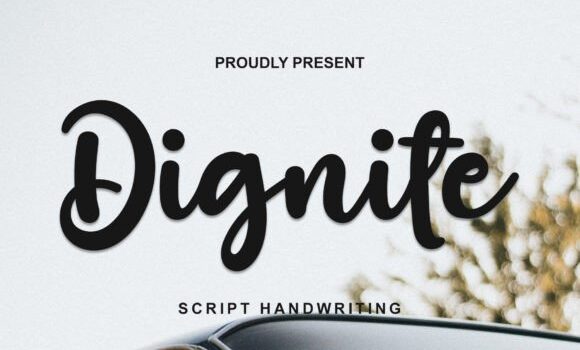
dignite
Dignite Font – Free Download Introduction to Dignite Font Dignite is a modern and friendly handwritten font. 📸 Preview Gallery 6 images 📌 Product Name Dignite Font 👤 Author 21Design 📂 Category Explore ⬇️ Download Dignite Font FREE Free Download